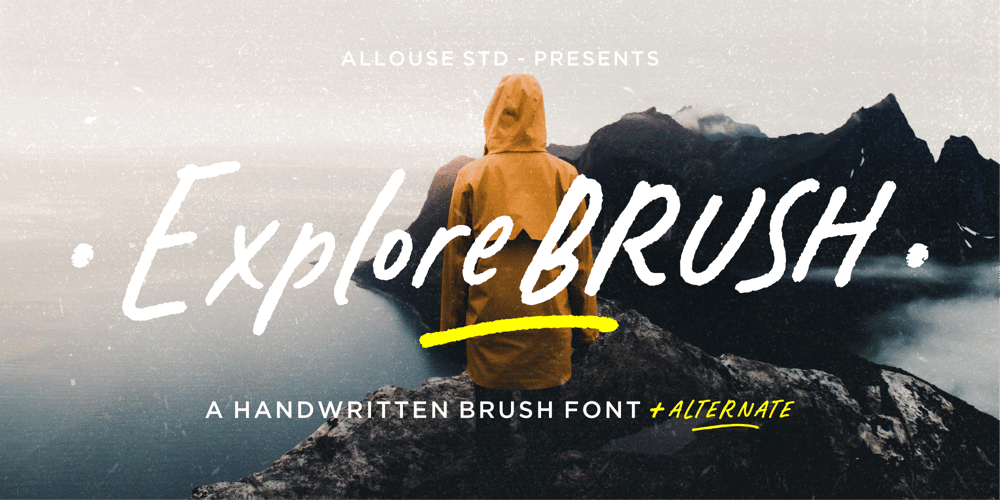
Explorebrush Font Family was designed by Fachrizal Yusuf and published by Allouse Studio. Explorebrush contains 1 styles and family package options. Proudly Presenting, Explorebrush A Handwritten Brush Font.Explorebrush is perfect for any titles, logo, product packaging, branding project, megazine, social media, wedding, or just used to express words above the background.Explorebrush also come with Multi-Lingual Support.Enjoy the font, feel free to comment or feedback, send me PM or email. Thank You!